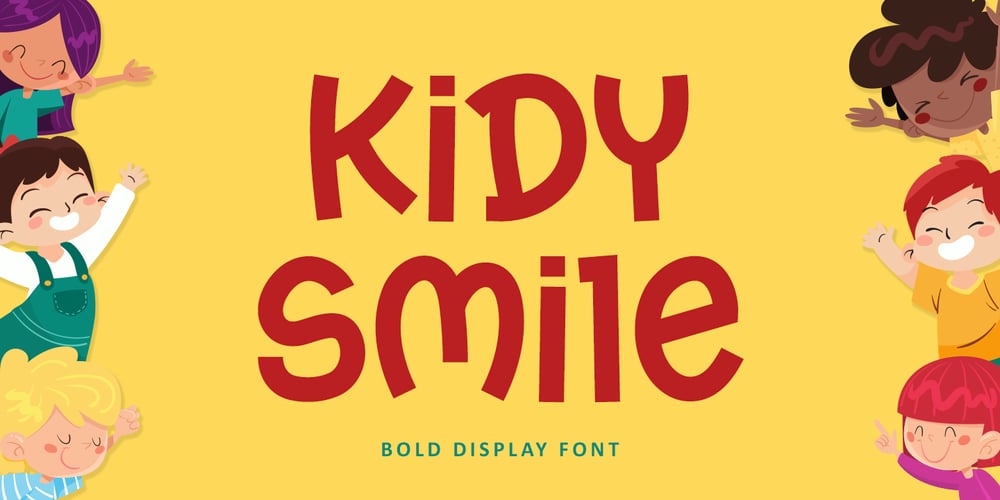
Kidy Smile Font Family was designed by Bayu Suwirya and published by Illushvara. Kidy Smile contains 1 styles and family package options. Kidy Smile is a cute handwritten font. It embodies playfulness and authenticity and is the perfect choice for any children activity or school project. Add this chunky lettered font to your designs and notice how it makes them come alive!